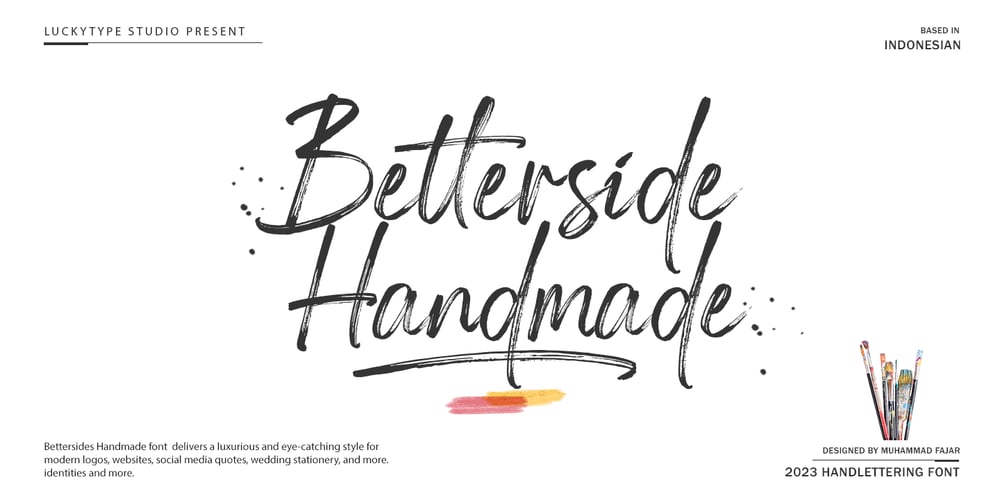
Betterside Handmade Font Family was designed by Muhammad Fajar and published by Lucky Type. Betterside Handmade contains 2 styles and family package options. Betterside Handmade font is a brand new handwritten font that brings a fancy and eye-catching style to modern logos, websites, social media quotes, wedding stationery and more. identity and others.Thank you very much for viewing.